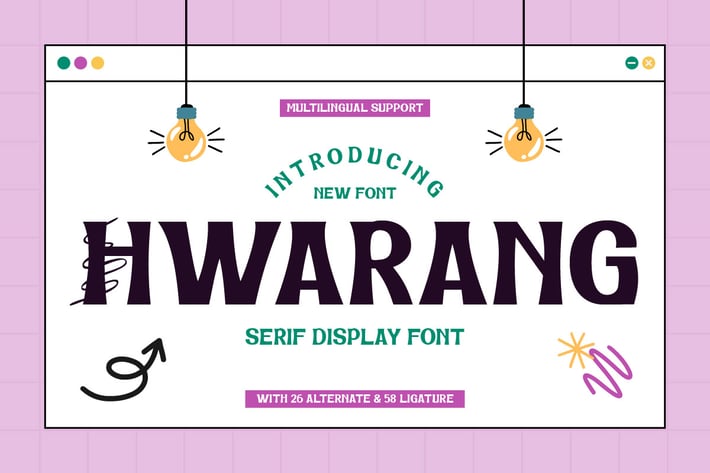
Hwarang - Display Font
Hwarang is a font that inspires creativity. This display font is all about thinking outside the box. Its unique, artistic characters make it perfect for creating eye-catching headlines and logos that stand out from the crowd. With Hwarang, your designs won’t just be unique, they’ll be unforgettable.
- Fonts include Multilingual support